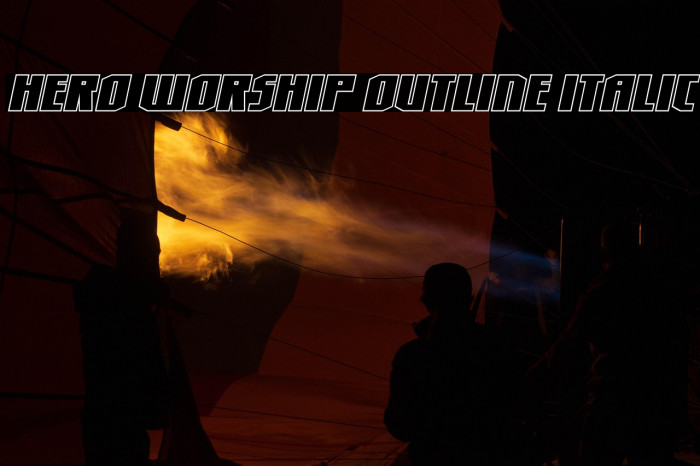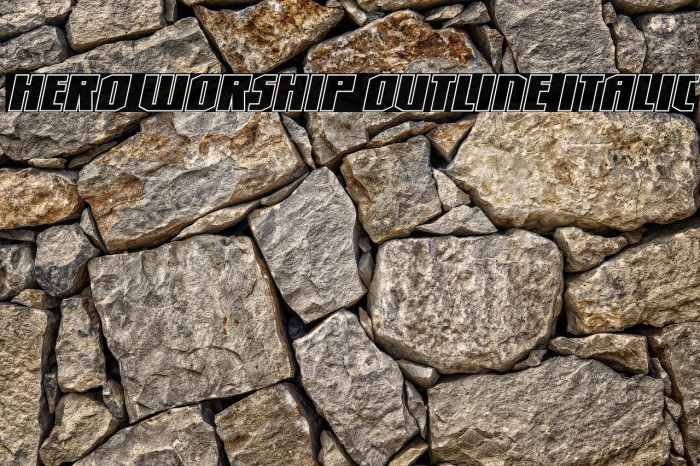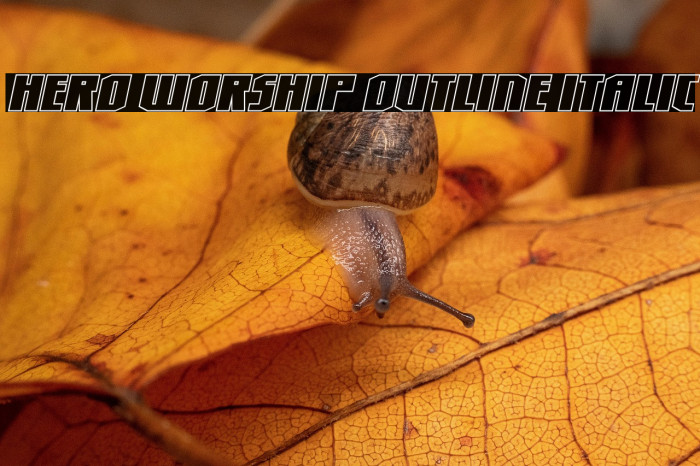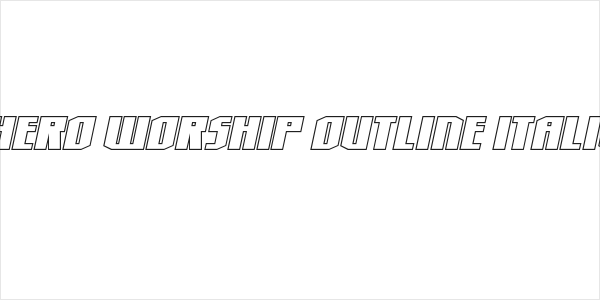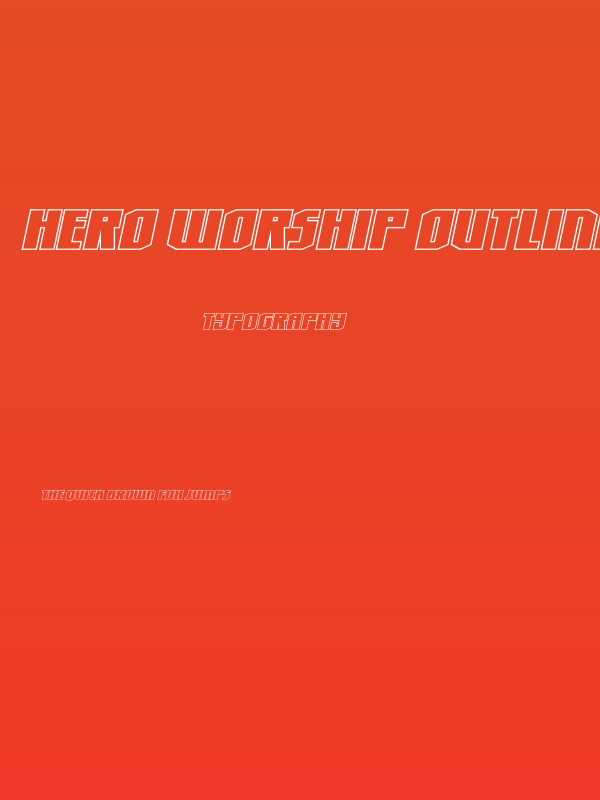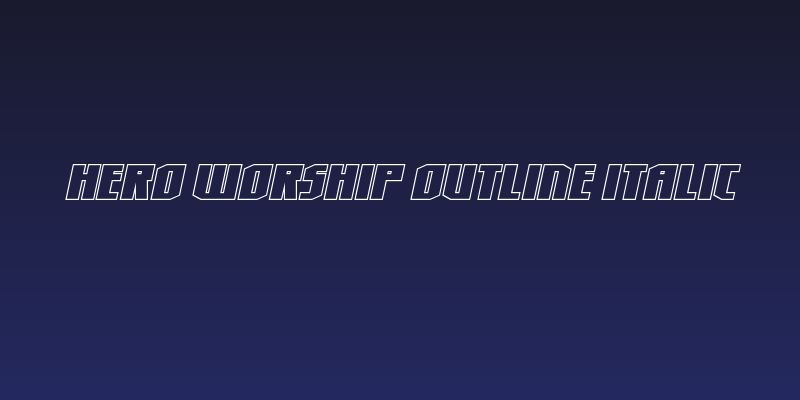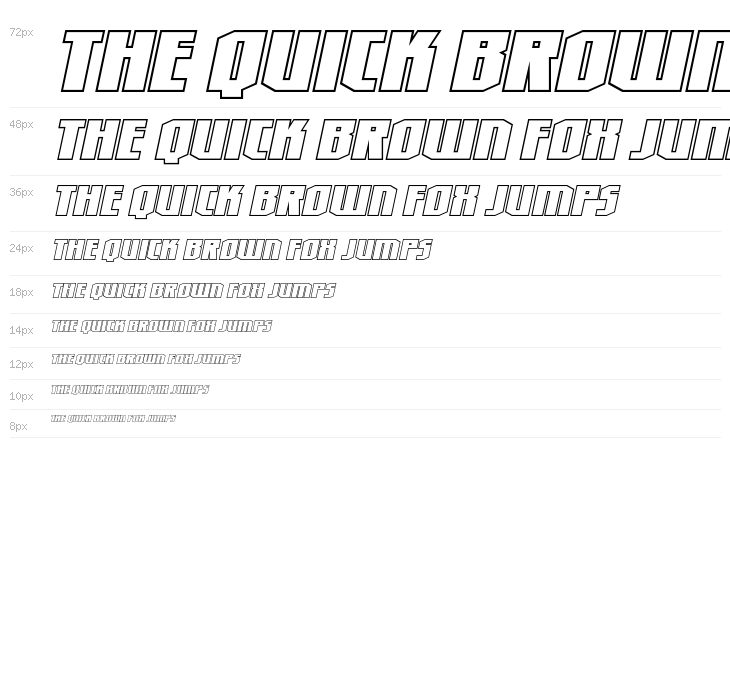
Hero Worship Outline Italic Font
Hero Worship Outline Italic Description
This font features a bold, outlined style with a distinct italic slant, giving it a dynamic and energetic appearance. The characters are angular and geometric, with sharp edges and a uniform thickness throughout. The uppercase and lowercase letters maintain a consistent style, while the numbers and special characters complement the overall design. The outlined nature of the font adds a layer of depth and dimension, making it stand out in various applications. Its boldness and unique style make it suitable for eye-catching designs.
| Proposed Projects | Ideal for posters, logos, video game graphics, and any project requiring a striking, modern aesthetic. |